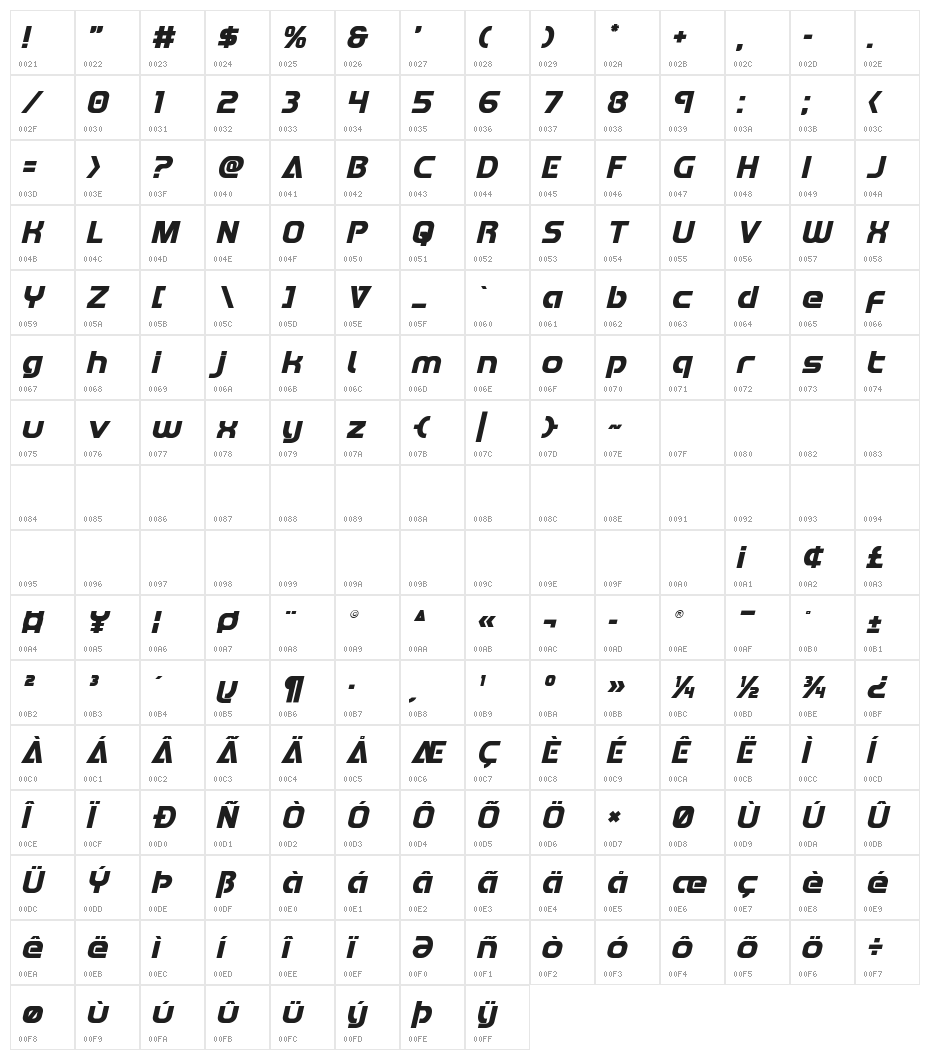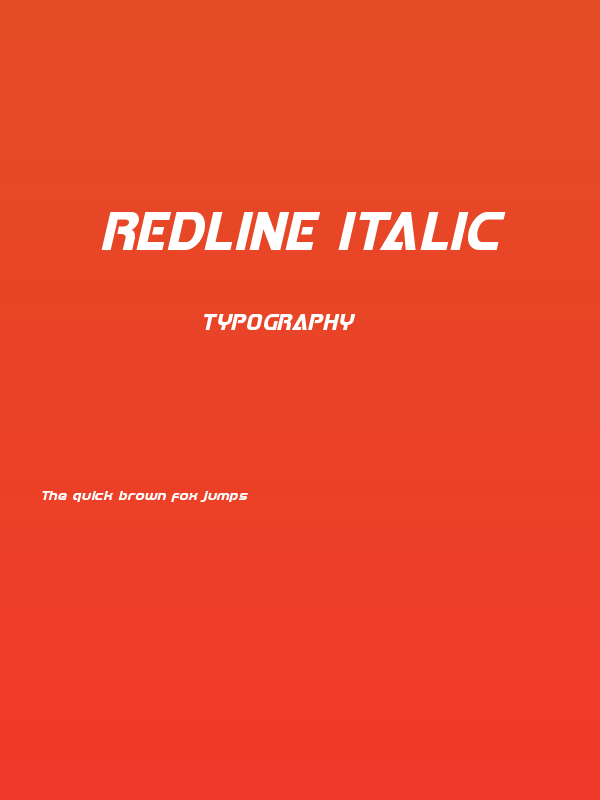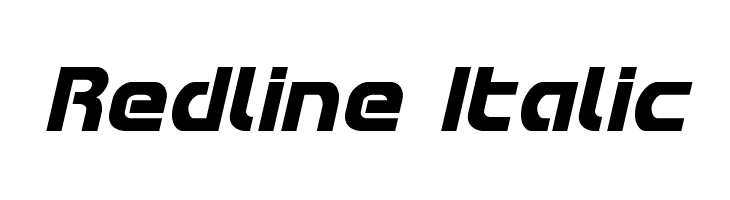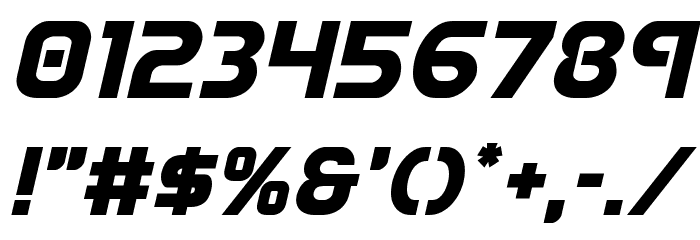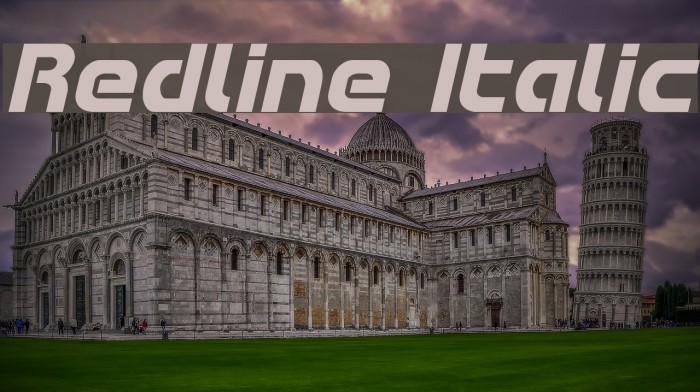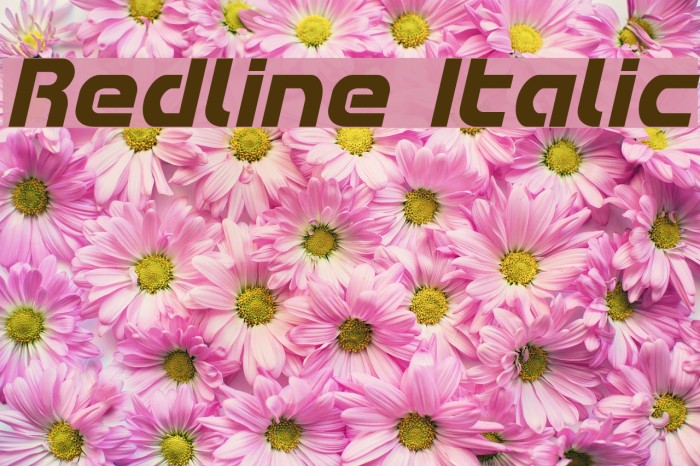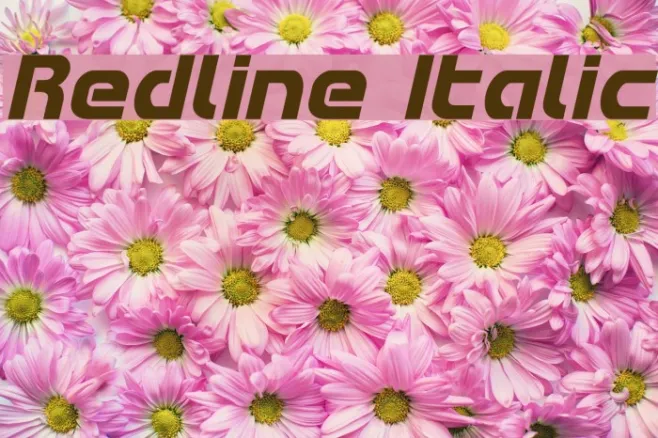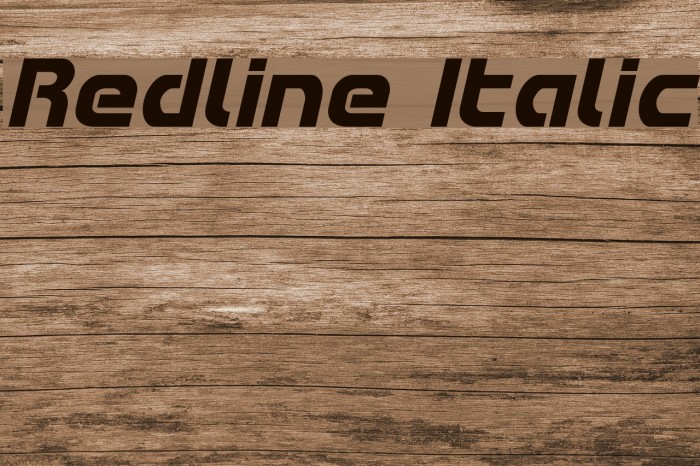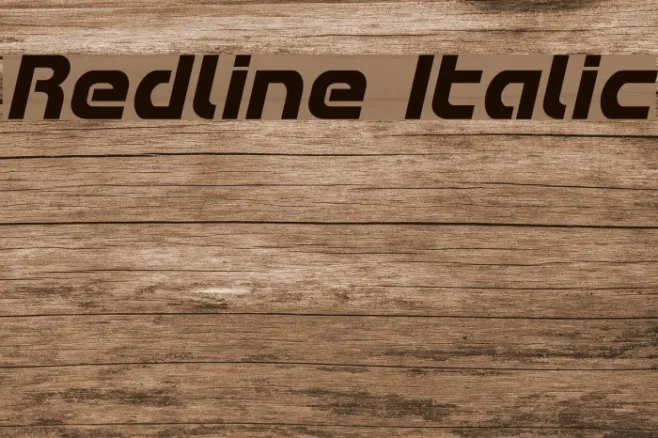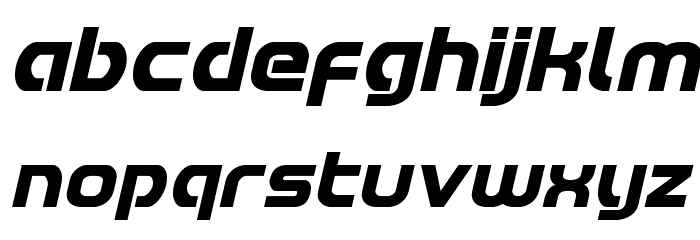
Redline Italic Font
Redline Italic Description
This font features a dynamic and modern italic style with a forward-leaning slant that conveys a sense of motion and speed. The characters are bold and slightly condensed, giving them a strong presence on the page. The strokes are consistent in width, providing a uniform appearance that enhances readability. The design incorporates sharp angles and clean lines, contributing to its contemporary aesthetic. The numerals and special characters maintain the same stylistic elements, ensuring cohesion across all text elements. This font is well-suited for projects that require a bold and energetic look.
| Proposed Projects | Ideal for sports branding, automotive advertisements, dynamic posters, and modern web design. |